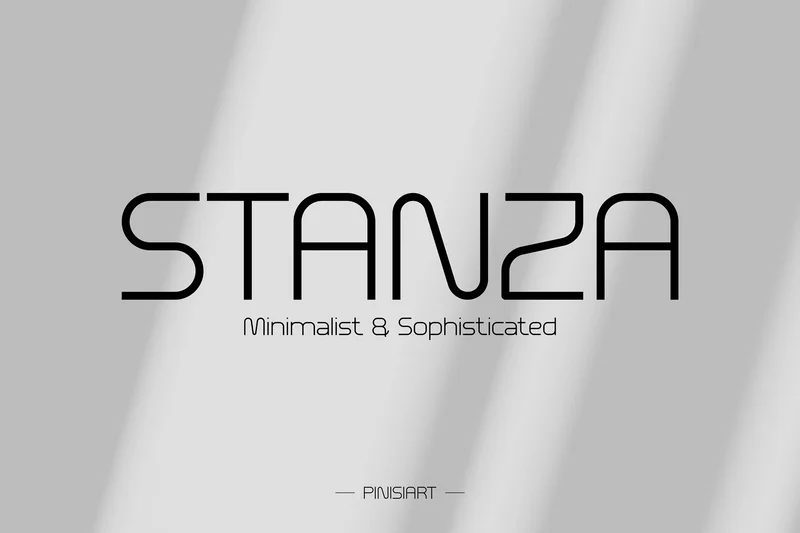
Stanza – Timeless Minimalist Typeface
Stanza is a geometric, minimal display typeface designed with crisp lines, balanced spacing, and a contemporary flow that instantly elevates visual storytelling. Its rounded edges soften the modern geometry, creating a sophisticated yet approachable vibe—perfect for fashion lookbooks, luxury lifestyle branding, and stylish editorial layouts. With its clean proportions and airy letterforms, Stanza communicates clarity, elegance, and confidence without overpowering your message.
From upscale fashion campaigns to Instagram-ready product features, Stanza bridges the gap between timeless elegance and modern digital aesthetics. It’s the ideal choice for designers seeking a typeface that blends editorial refinement with social media appeal, making your headlines captivating and your body text effortlessly stylish. Whether on billboards, packaging, or a sleek UI, Stanza turns minimalism into a visual statement.
Key Features :
Modern Geometry – Precision-built letterforms for a sleek, structured look.
Effortless Versatility – Works seamlessly across fashion, tech, and lifestyle projects.
Readable Minimalism – Strikes the perfect balance between style and clarity.
Brand-Ready Personality – Instantly elevates logos, campaigns, and editorial spreads.